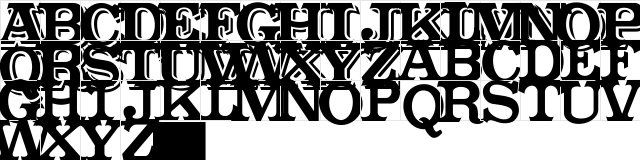
Outstanding Regular
Design Context for Outstanding Typeface
Outstanding offers clean, dependable letterforms without strong stylistic allegiance, making it a practical choice for designers who need flexibility.
Pro Tip: Use Outstanding in both headline and body roles to test its range before committing to a single application.